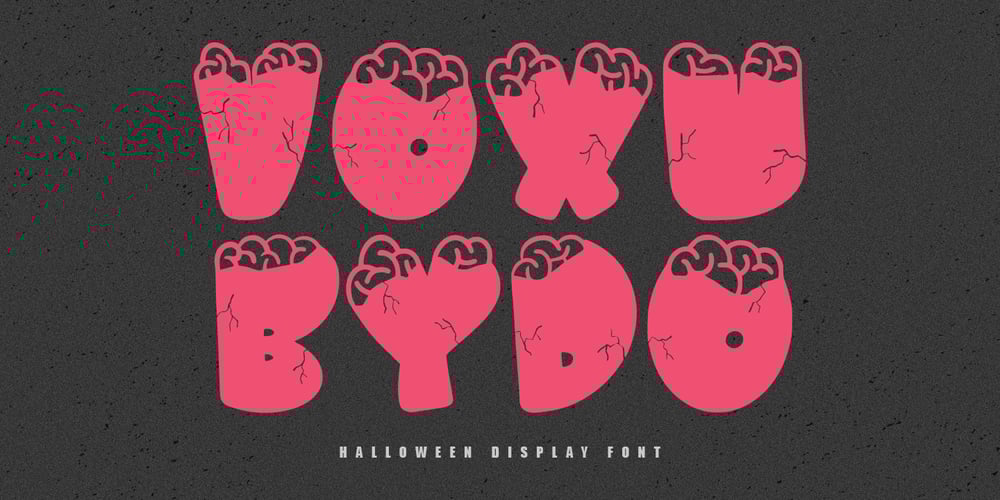
MC Voxubydo Font Family was designed by Gilang Maulana and published by Maulana Creative. MC Voxubydo contains 1 styles and family package options. Voxubydo is a Horror Halloween Vibe Decorative display font. With Bold smooth stroke, Upright and fun character. To give you an extra creative work. Voxubydo font support multilingual language. This font is good for logo design, Social media, Movie Titles, Books Titles, a short text even a long text letter and good for your secondary text font with Script. Make a stunning work with Voxubydo font.Cheers,Maulana Creative